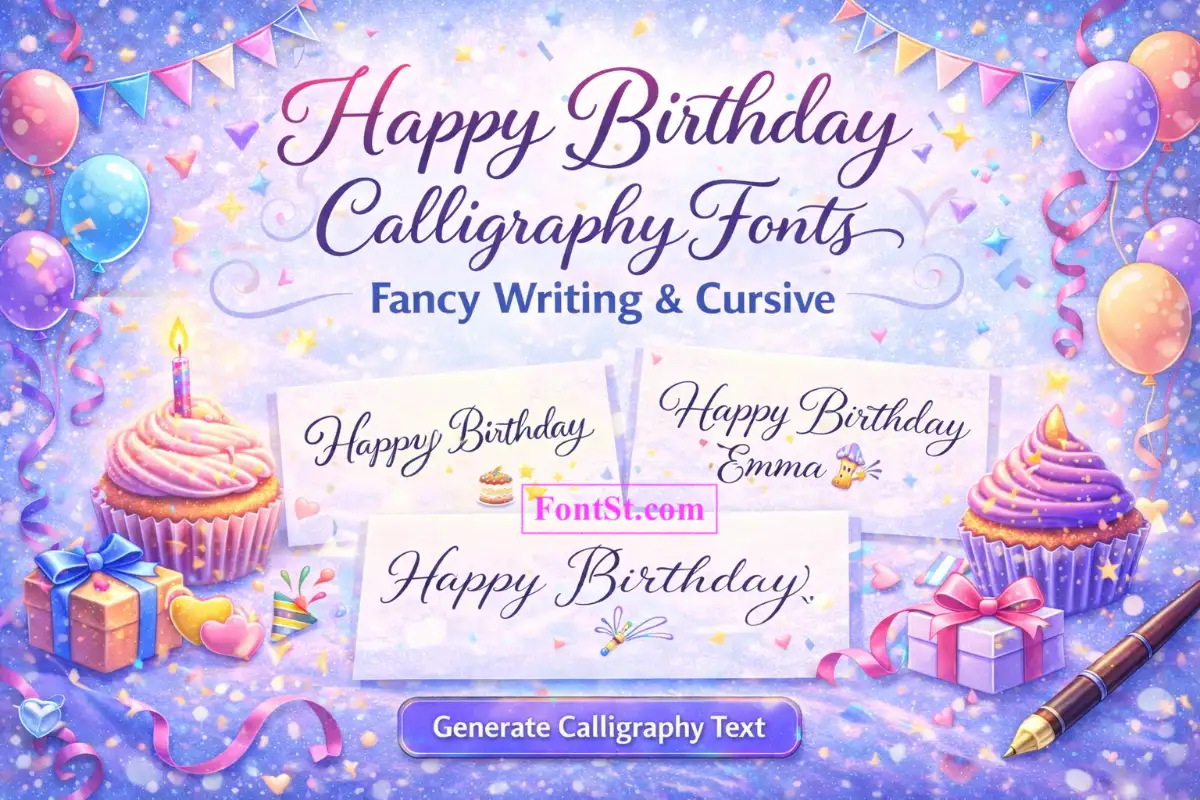
🎂 Happy Birthday Calligraphy Text Copy and Paste
Celebrate someone’s special day with 50 beautiful birthday wishes in elegant calligraphy lettering, decorated with cute birthday emojis, hearts, flowers, and fancy symbols—ready to copy and share.
Calligraphy-style birthday text instantly feels warmer and more special—like a handwritten card. Use this page to generate Happy Birthday in elegant calligraphy, cursive, script, and handwriting styles you can Copy & Paste anywhere.
Happy Birthday Fonts Calligraphy
Happy Birthday Fonts Calligraphy are perfect when you want your wish to look like it was written with a pen—smooth strokes, elegant curves, and a personal feel. These styles work great for:
- Story posts and reels covers
- Birthday cards and short notes
- Cake topper text ideas
- Romantic or family wishes
Tip: Calligraphy styles look best with short phrases and clean spacing.
Calligraphy Happy Birthday Font Style Tips
A good calligraphy happy birthday font style should be elegant but still readable. For the cleanest result:
- Keep the phrase short: “Happy Birthday”, “HBD”, “Best Wishes”
- Avoid too many emojis inside the text (add 1–2 at the end instead)
- Try title case first: “Happy Birthday” (often looks nicer than ALL CAPS)
If your message is long, make only the first line calligraphy and keep the rest plain text.
Happy Birthday In Cursive Writing Copy Paste
Want happy birthday in cursive writing copy paste for quick posting? Cursive is the easiest romantic/classy option:
- Type: “Happy Birthday”
- Choose a cursive style
- Copy & paste into Instagram, WhatsApp, Messenger, Facebook, or TikTok
If a cursive style looks too curly on mobile, switch to a simpler script.
Calligraphy Font Happy Birthday For Cards And Captions
A calligraphy font happy birthday style is ideal for:
- “To my love” captions
- Birthday card headings
- Elegant story overlays
- Wedding-like aesthetics (clean, premium)
Best practice:
- Use one decorative line only
- Add a simple emoji after it: 🎂✨ or 🎉
Happy Birthday Fancy Writing Ideas
Happy birthday fancy writing works best when you pair it with a short, emotional message. Try:
- “Happy Birthday ✨”
- “Wishing You Joy 🎂”
- “Celebrate Today 🎉”
- “You Deserve The Best 💛”
Fancy writing looks more “designed” when you keep punctuation minimal.
Happy Birthday In Calligraphy Font For Names
If you want happy birthday in calligraphy font with a name, use a two-line format:
- Line 1: “Happy Birthday” (calligraphy)
- Line 2: “David” or “Marry” (simple script or clean bold)
Example:
- “Happy Birthday”
- “Anna 🎂”
This keeps it readable and beautiful—especially for Stories.
Happy Birthday Cursive Font Styles That Stay Readable
A happy birthday cursive font can be soft and elegant, but readability matters on small screens. Choose styles that:
- Keep letters clear (not overly swirly)
- Don’t compress spacing too much
- Look good in both upper and lower case
Tip: If the style makes letters merge together, shorten the phrase to “HBD”.
Happy Birthday In Script Font Vs Cursive
Many people search happy birthday in script font and mean cursive, but there’s a small difference:
- Script font: handwriting-style category (broad)
- Cursive: usually means letters connect smoothly
In practice, both are great for birthday wishes. Script tends to be a bit more flexible and readable across different styles.
Happy Birthday Cursive Writing Text For WhatsApp And Instagram
For happy birthday cursive writing text on WhatsApp or Instagram:
- WhatsApp: pick a clean script/cursive so it’s easy to read in chat
- Instagram: you can go fancier (especially on Stories)
Quick templates:
- “Happy Birthday 🎂✨”
- “HBD 🥳🎉”
- “Best Wishes 💛🎈”
Tip: Test paste once—some apps display certain characters differently.
Happy Birthday Handwriting Style For A Personal Feel
A happy birthday handwriting style is perfect when you want the wish to feel casual and real—like a note from a friend.
Best for:
Why does the text look different on other devices?
Different platforms render Unicode characters differently. If a style looks odd, pick a simpler script/cursive option.